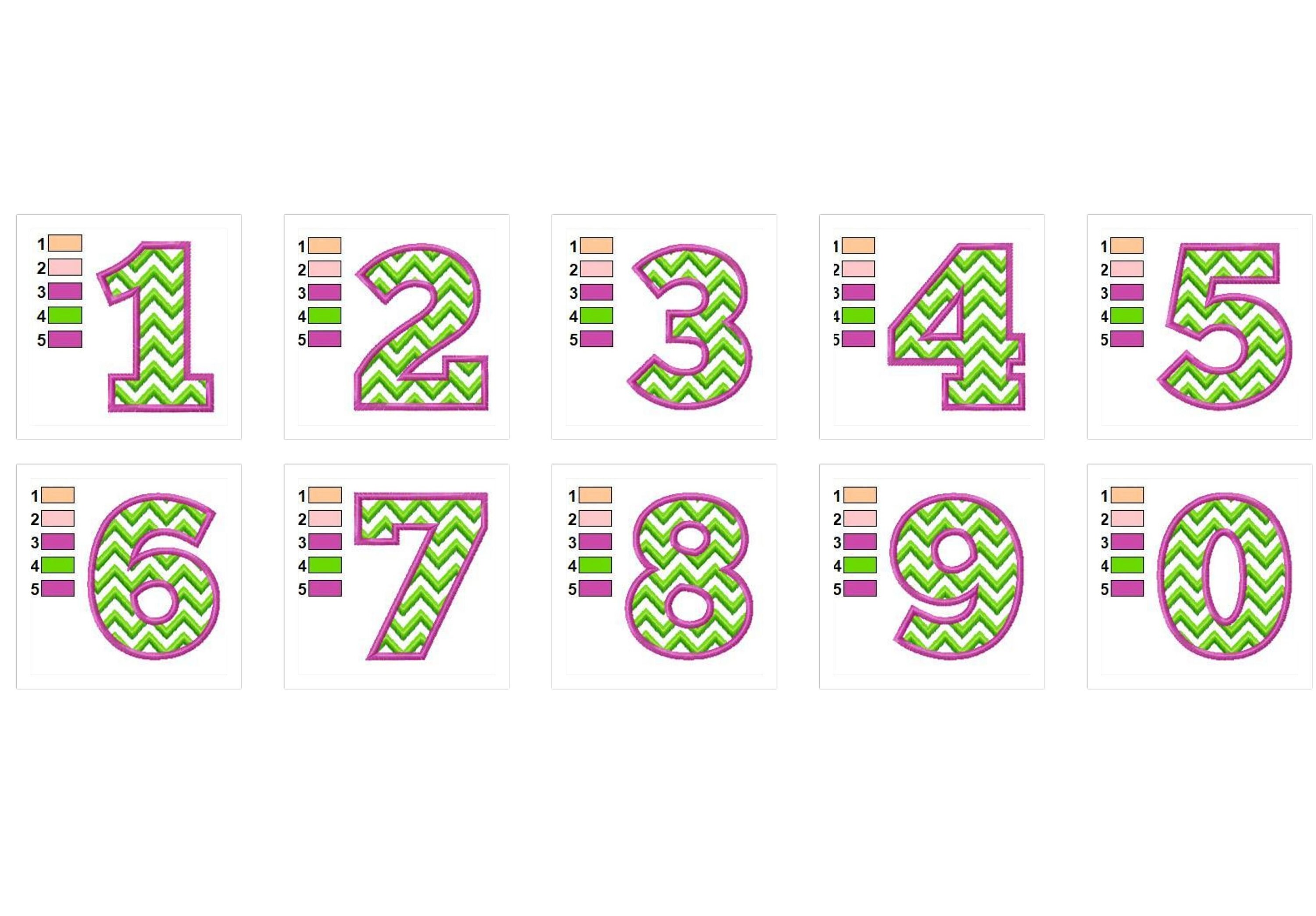
CHEVRON block Birthday numbers machine embroidery designs - assorted many sizes, font sport Chevron number applique
Chevron lines are part of embroidery. They are stitches. The background is an appliqué. It works so, make the placement outline, lay the fabric and make the appliqué outline, then continue embroidering with the chevron lines. Last will be the appliqué satin covering stitch. You may also do it just as is without the background fabric, so your design will be transparent with chevron lines.